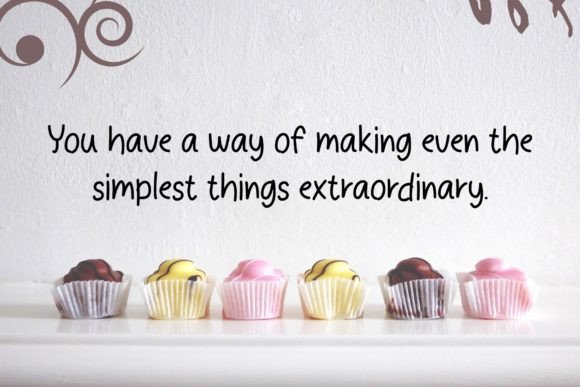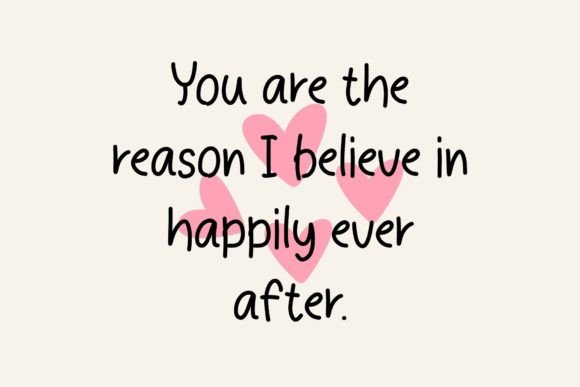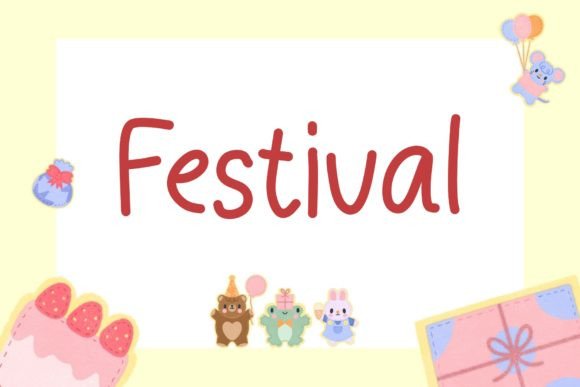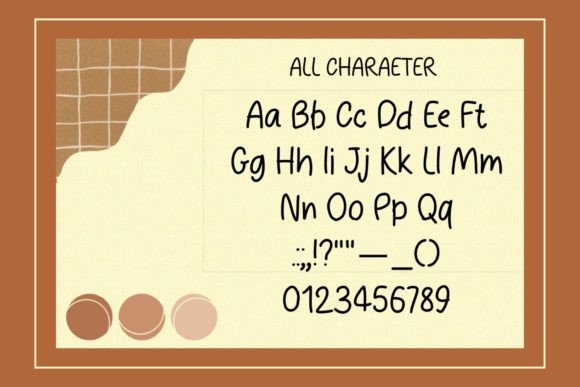
The Ultimate Festival Font: Elevate Your Designs with a Touch of Liveliness
I’ll never forget the time I was working on a vibrant festival poster, and my design was just missing that extra oomph. I had the colors, the graphics, and the layout, but something felt flat. That’s when I stumbled upon the Festival Font, and it instantly transformed my design into a lively, energetic masterpiece. If you’re a designer, crafter, or creative hobbyist looking to add a dash of excitement to your projects, you’re in the right place!
Here’s what makes Festival Font a standout addition to your font library:
- ✨ Bold strokes and cheerful curves: The font’s dynamic design creates a sense of movement and excitement, instantly captivating your audience.
- ✅ Perfect for festive designs: Whether you’re working on event posters, party invitations, or holiday-themed designs, Festival Font adds a touch of liveliness and exuberance to your creations.
- 🎉 Highly versatile: This font is suitable for a wide range of projects, from digital designs to print materials.
Now, let’s talk about a few minor quirks:
- 🤔 Legibility at small sizes: While Festival Font looks amazing at larger sizes, it can become a bit tricky to read at smaller sizes (below 10pt). Be mindful of this when choosing font sizes for your designs.
- ⚠️ Limited use in formal designs: Due to its bold and playful nature, Festival Font might not be the best fit for formal or professional designs, such as corporate branding or business reports.
The Designer Inspiration Behind Festival Font
Festival Font was inspired by the vibrant energy of music festivals and celebrations around the world. Its creator, a talented type designer, aimed to capture the essence of joy and excitement in a single font. The result is a bold, cheerful typeface that’s perfect for adding a touch of liveliness to your designs.
| Font Name | Festival Font |
| Author | MyFontsShop |
| Is Festival Font suitable for body text? | While Festival Font is a beautiful font, it’s best suited for headlines and titles. For body text, consider using a more legible font. |